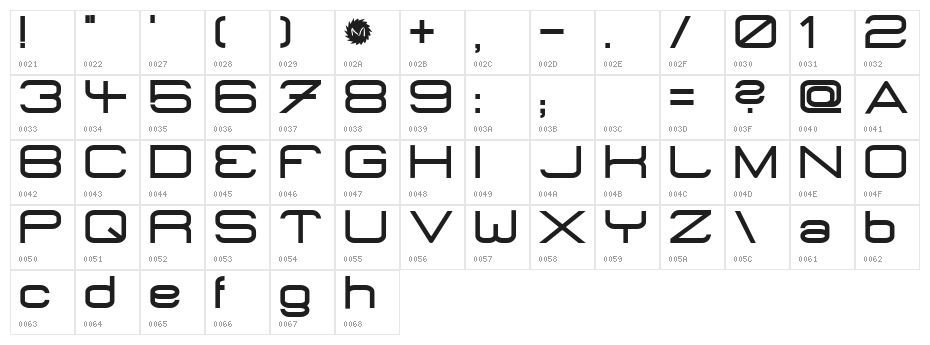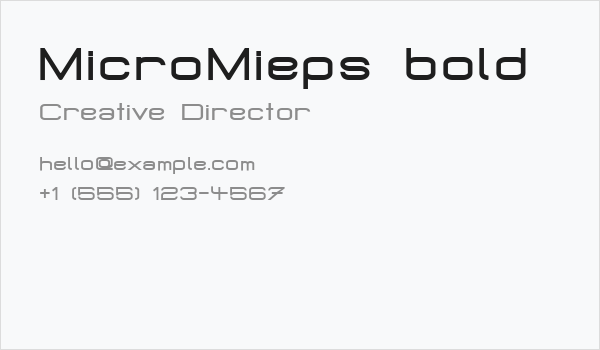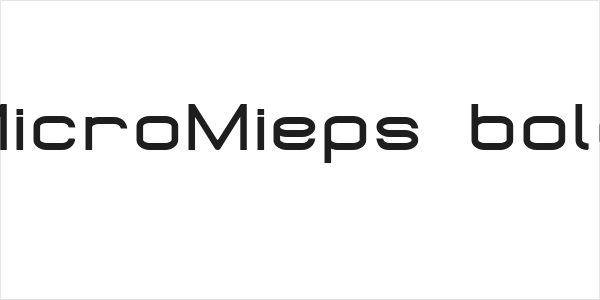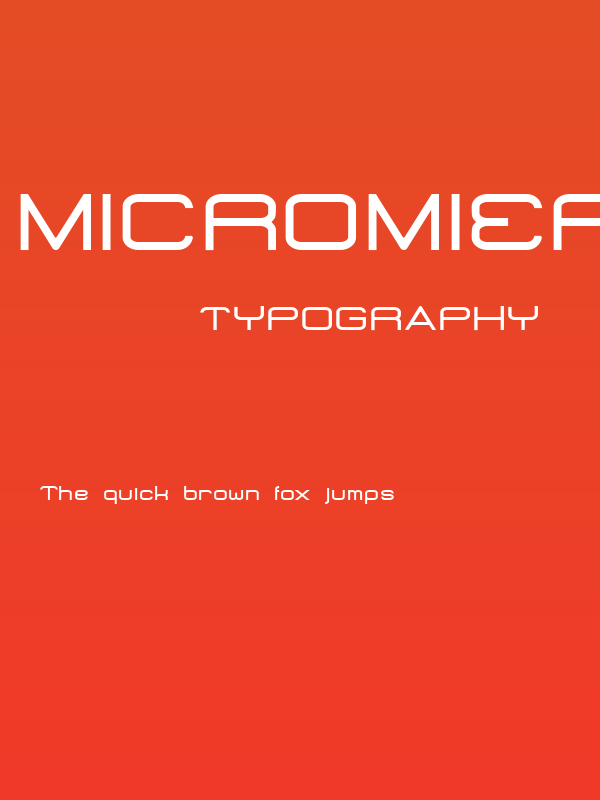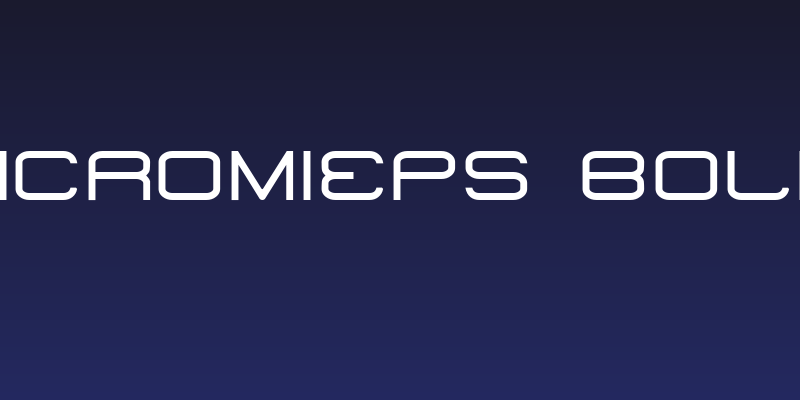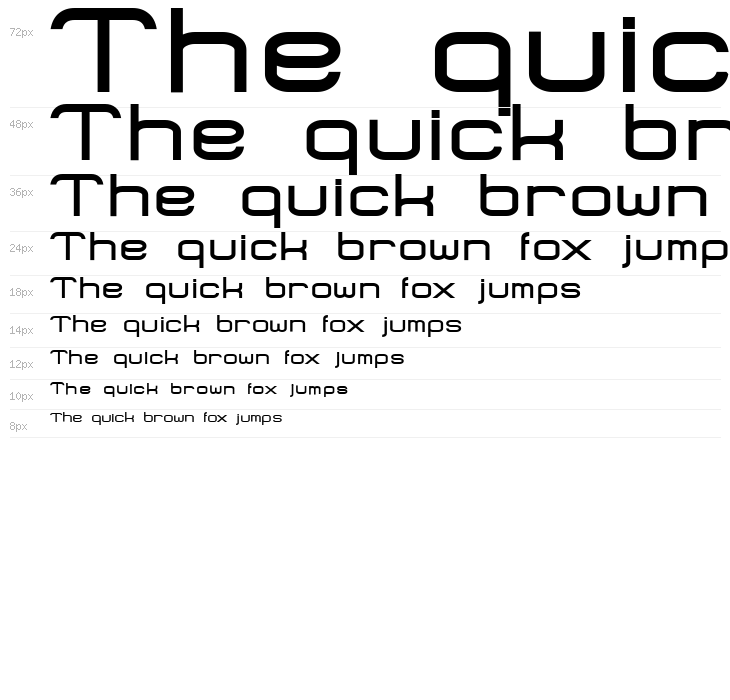
MicroMieps bold Font
MicroMieps bold Description
This font features a futuristic and geometric design, characterized by its clean lines and angular shapes. The uppercase and lowercase letters maintain a consistent height, creating a uniform appearance. The numerals are distinct and align well with the overall style, while the special characters add a unique flair with their bold and innovative forms. The font's modern aesthetic is suitable for technology-related projects, offering a sleek and contemporary look.
| Use Case | Headlines, Logos, Digital Interfaces |
| Proposed Projects | Ideal for technology branding, sci-fi posters, digital interfaces, and modern advertising. |